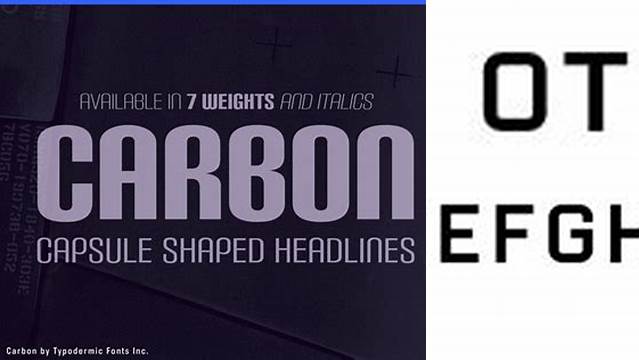
Introduction to Carbon OT Bold Font
Hey guys! Let's dive into the world of typography, specifically focusing on the Carbon OT Bold font. If you're on the hunt for a font that screams modernity, strength, and clarity, then you've landed in the right place. The Carbon OT Bold font is a stellar choice for a variety of design projects, ranging from branding and advertising to web design and editorial layouts. Its bold character exudes confidence and makes a statement, ensuring your message gets across loud and clear. This font isn't just about aesthetics; it's about creating an impact. When you choose a font, you're choosing a voice for your content. Carbon OT Bold speaks volumes with its robust, clean lines and contemporary feel. It's versatile enough to fit into various design contexts, whether you're crafting a sleek logo, designing an eye-catching poster, or formatting a professional document. The appeal of Carbon OT Bold lies in its ability to balance boldness with readability. It's not just a visually striking font; it's also incredibly functional. This makes it a favorite among designers who need a typeface that performs well both in print and digital media. The font's distinct character shapes ensure legibility even at smaller sizes, which is crucial for body text and UI elements. Moreover, the Carbon OT Bold font family often includes a range of weights and styles, providing designers with a comprehensive toolkit for their typographic needs. This means you can maintain a consistent visual identity across all your projects while still having the flexibility to create contrast and hierarchy. Whether you’re aiming for a minimalist look or a more dynamic design, Carbon OT Bold can adapt to your vision. The key to using Carbon OT Bold effectively is understanding its personality. It's a font that commands attention, so it's best used in situations where you want to make a strong impression. Think headlines, titles, and call-to-action buttons. However, its clean design also makes it suitable for shorter paragraphs and captions, where clarity is paramount. In the following sections, we'll explore where you can find free downloads of this fantastic font, how to install it, and tips for using it in your design projects. So, stick around and let's get started on your journey to mastering Carbon OT Bold!